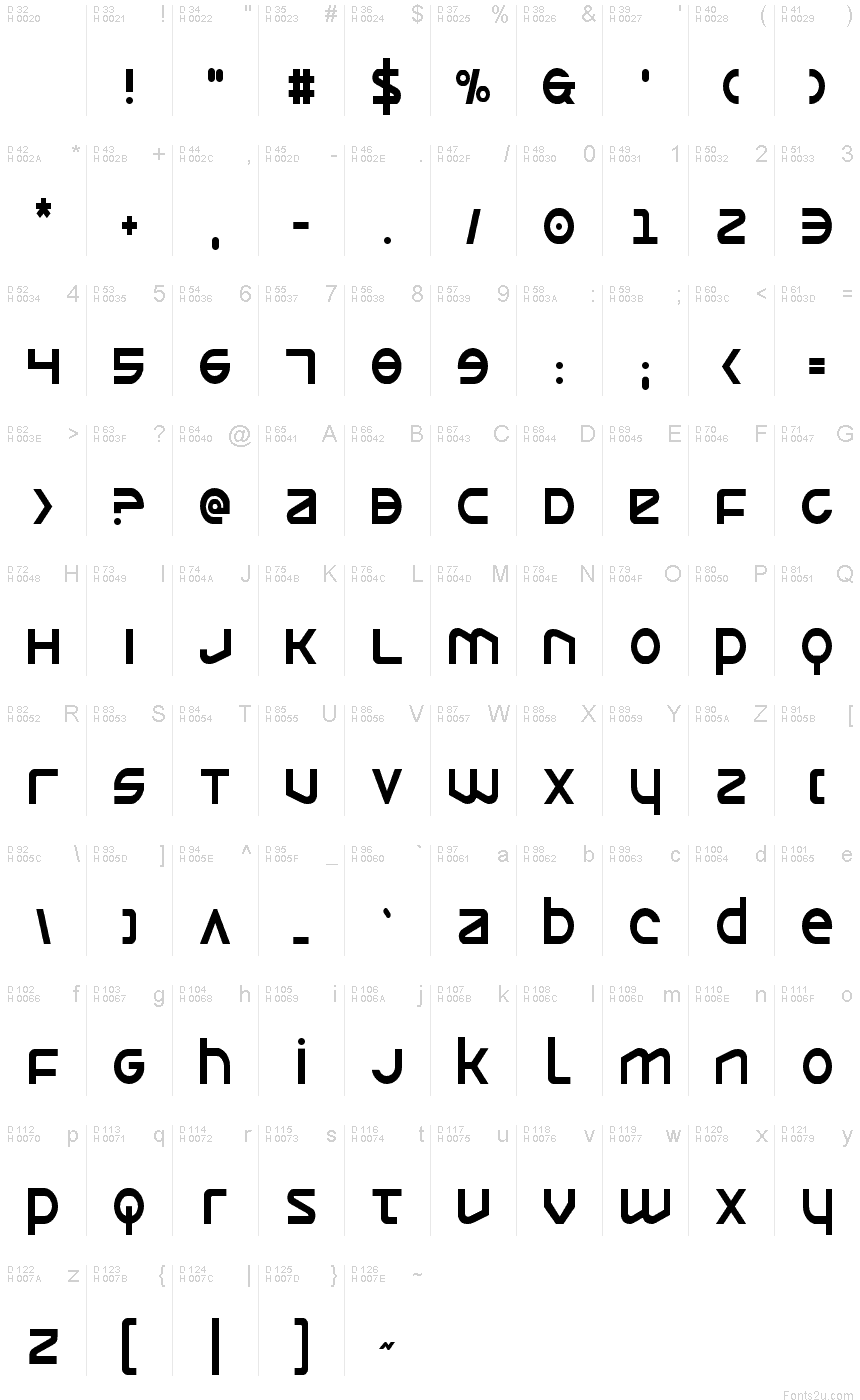
Opilio Condensed by Daniel Zadorozny of Iconian Fonts is a free futuristic display font with broad, weighty strokes and engineered letterforms. Rounded arches meet sharp diagonal cuts, and several letters use open joints or unexpected turns that give the alphabet the look of machine parts.
Technology and gaming audiences will recognize its sleek, speculative character in game interfaces, event posters, and electronic music artwork. It also suits branding for hardware or performance products. The recurring cutaways and slanted connections can echo circuit traces, vehicle panels, or angular interface graphics, making the lettering part of the subject rather than a caption.